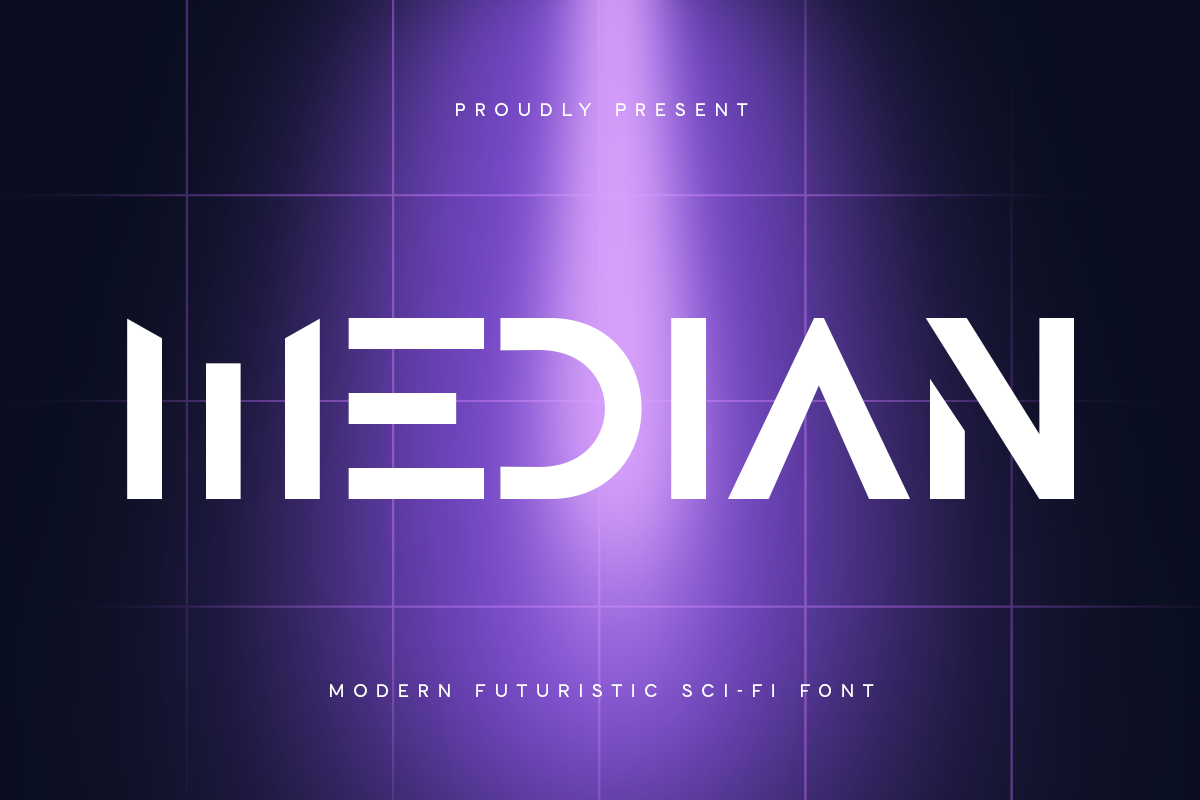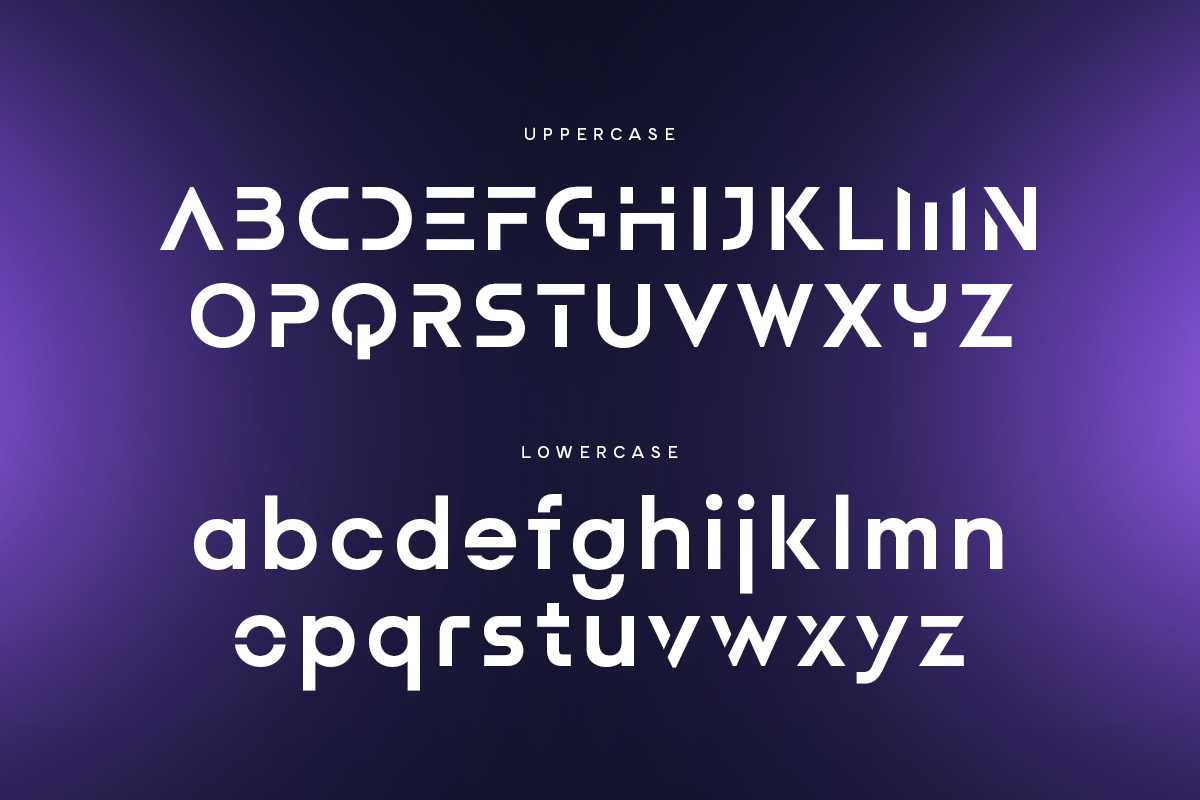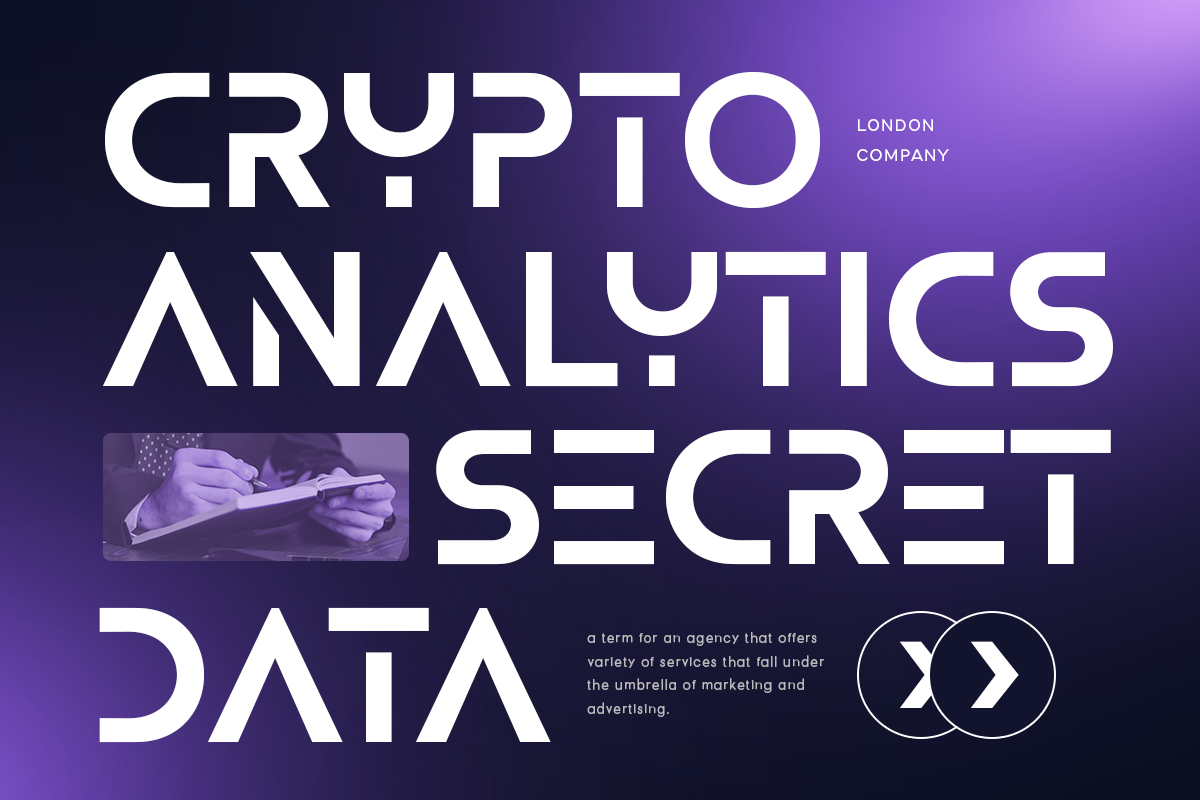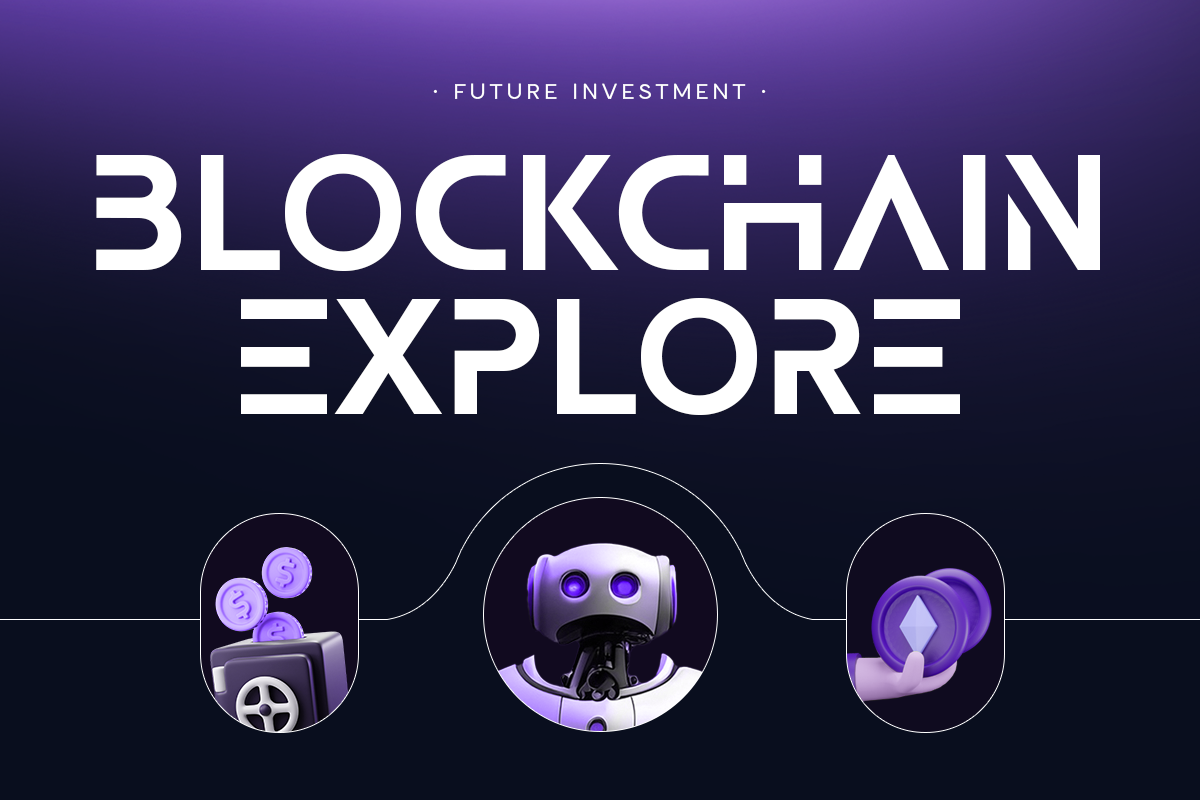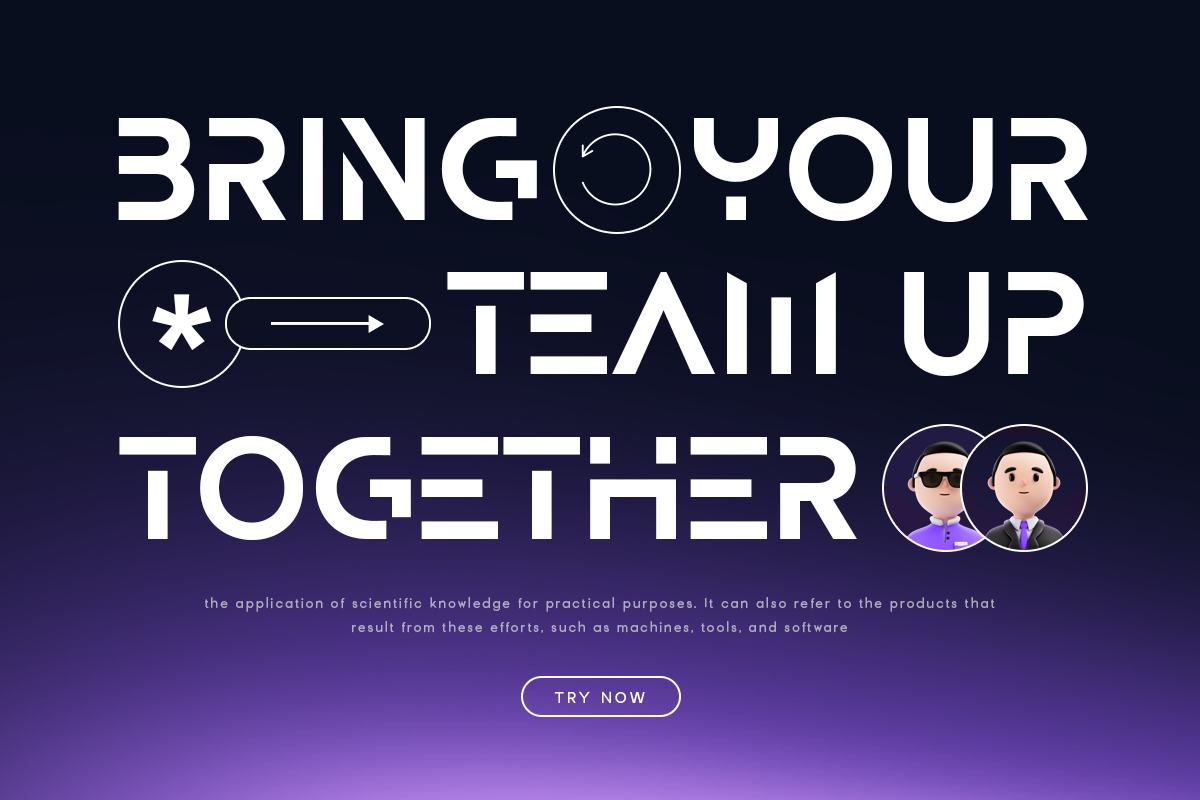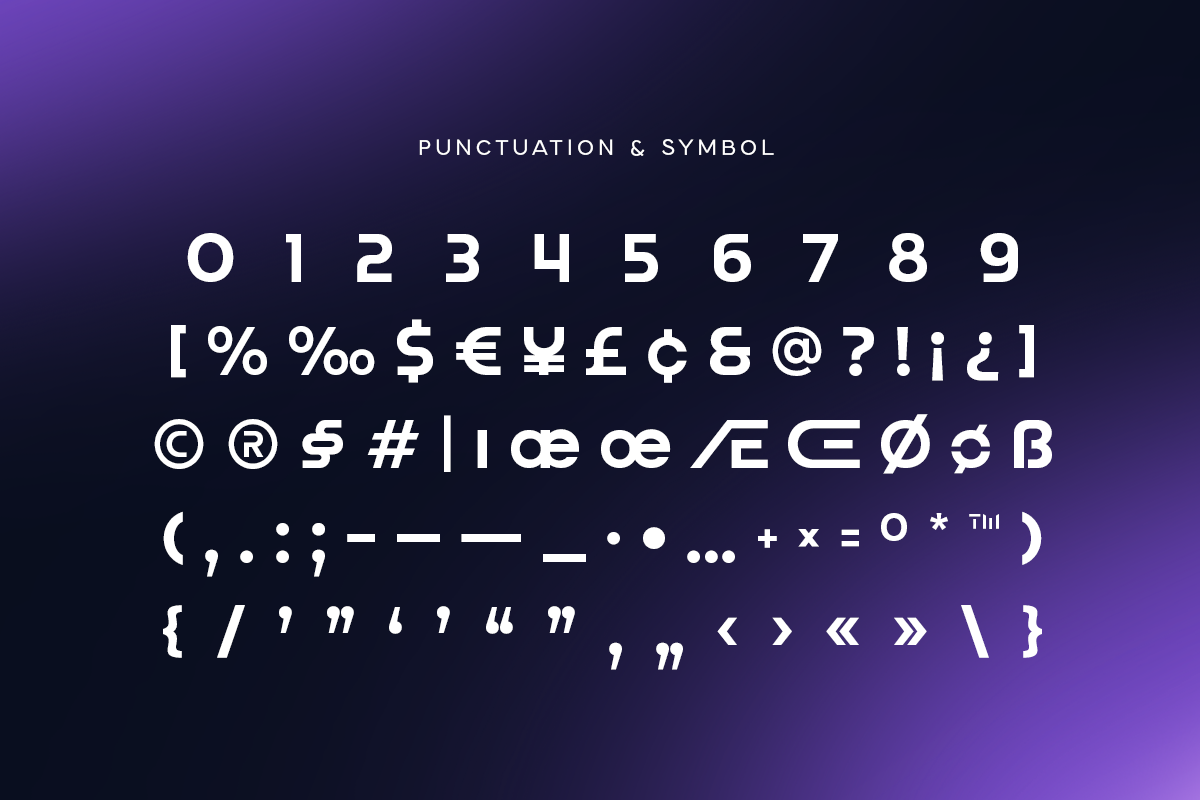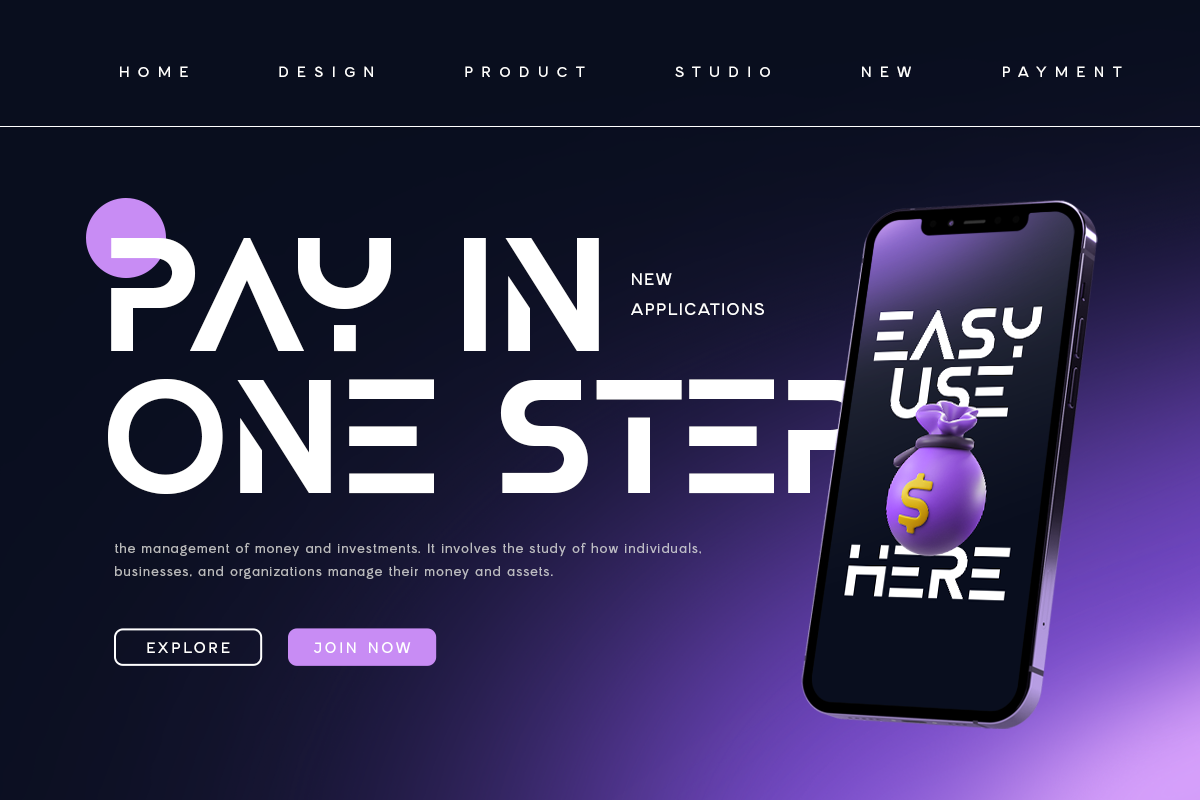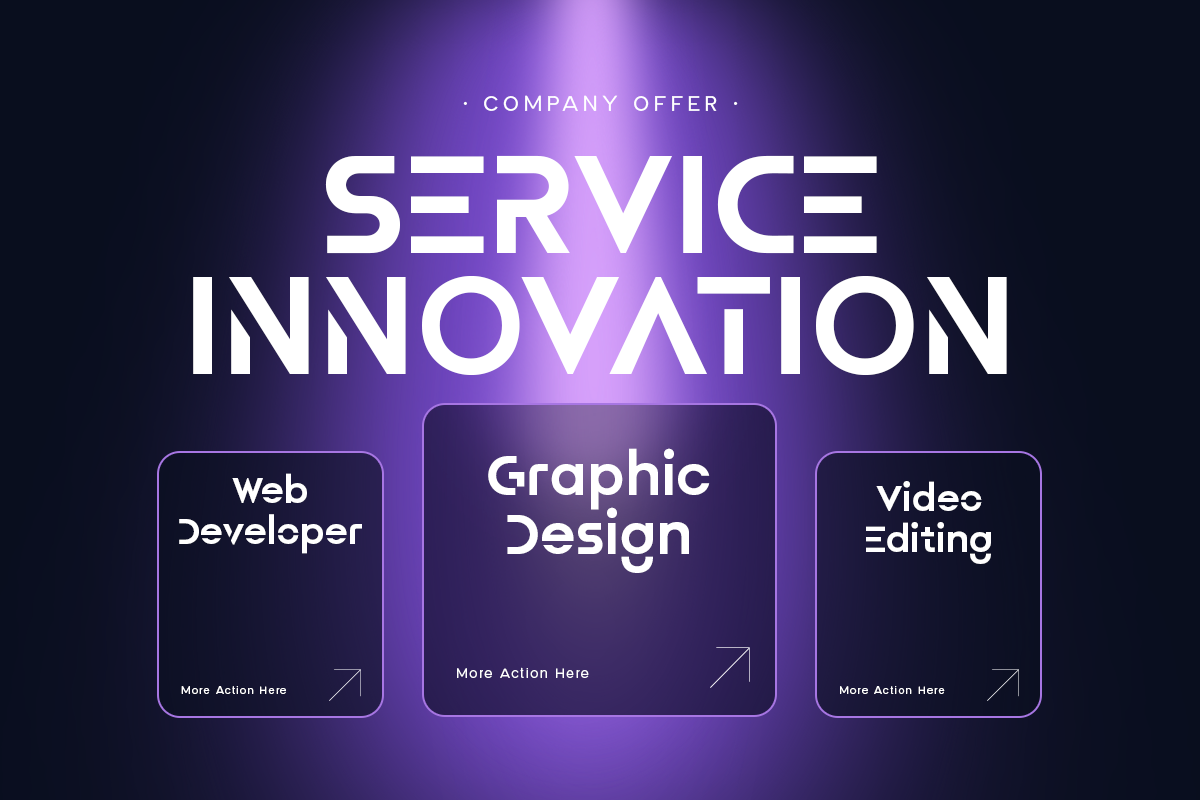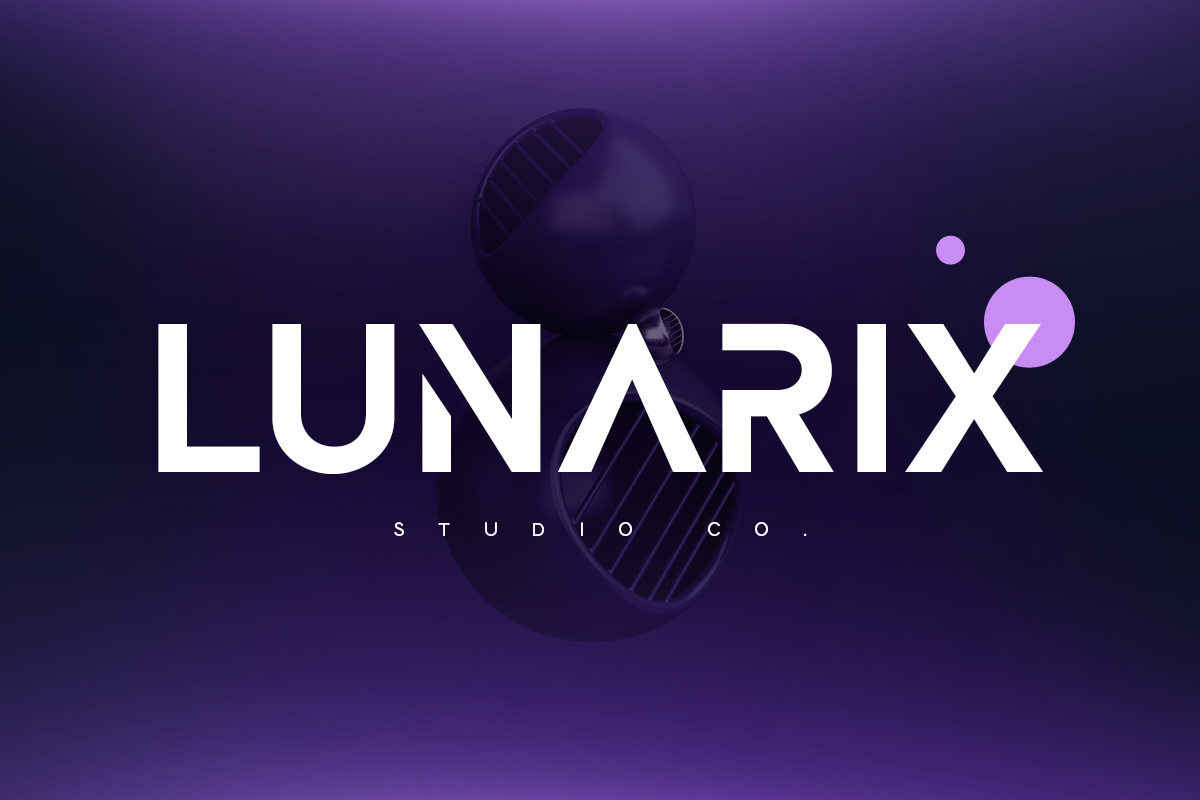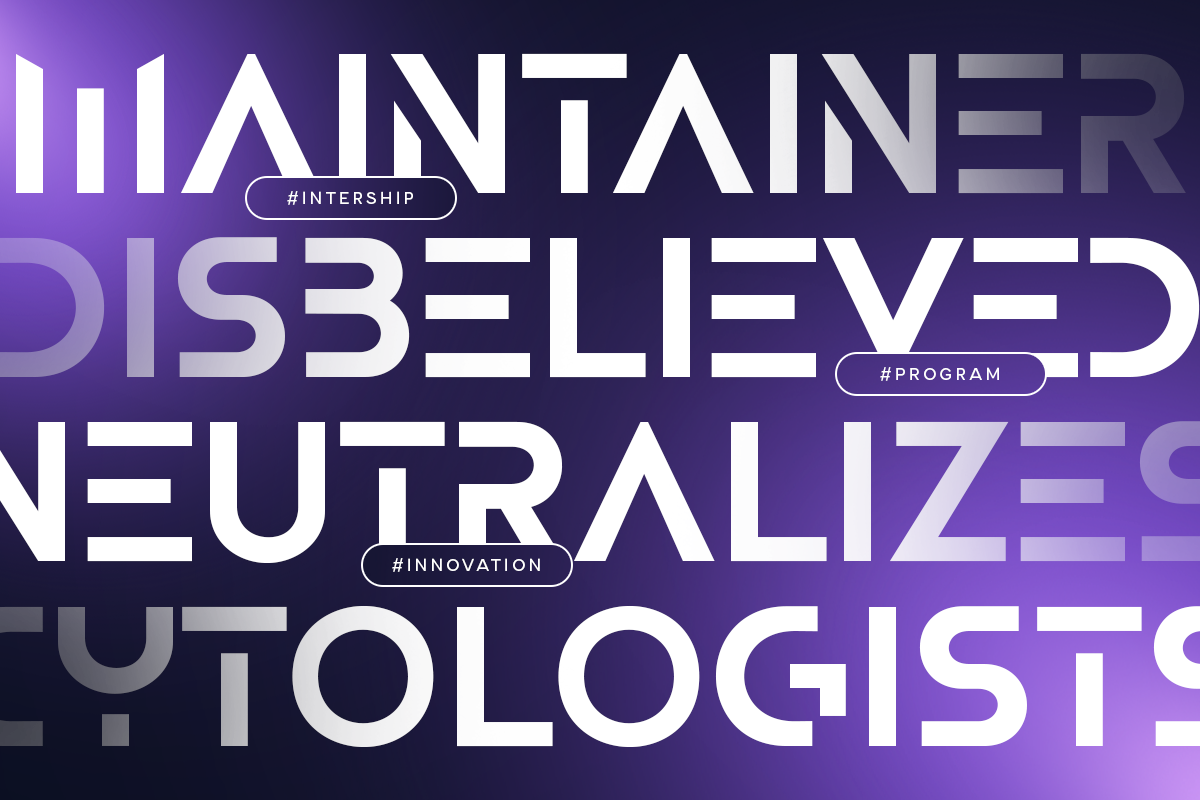
Median - Futuristic Sci-fi Font
MEDIAN Modern Futuristic Techno Font is a Modern Futuristic font are prepared special for Technology, Modern, and Futuristic design needs, that created special for Logo, Title and more stand out typography for futuristic and sci-fi. It's so perfect to add your style and headline overview for technology, film, space, and futuristic theme. And specially for this font, we've ready for modern feels so enjoy to create any project that will show your main idea out.
MEDIAN Modern Futuristic Techno Font ready with:
- Ready with Uppercase and Lowercase Characters
- Preview as a inspirations that you can do with MEDIAN font
- Perfect for Futuristic Sci-fi Design